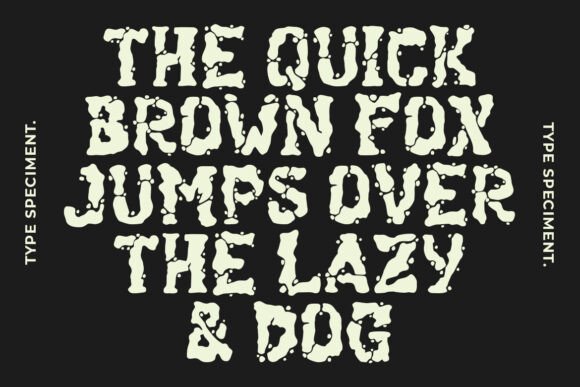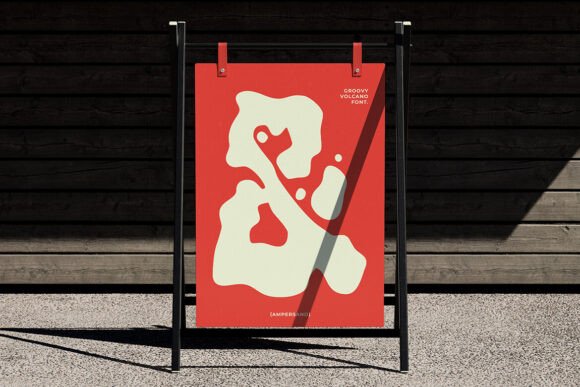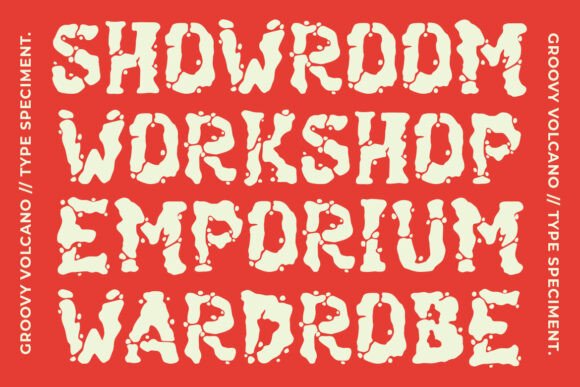
Groovy Volcano Font
Groovy Volcano is a hand-drawn display font that embodies the rough and rugged appearance of cracked rocks or weathered walls.The font is ideal for creating eye-catching poster headlines and other design elements.